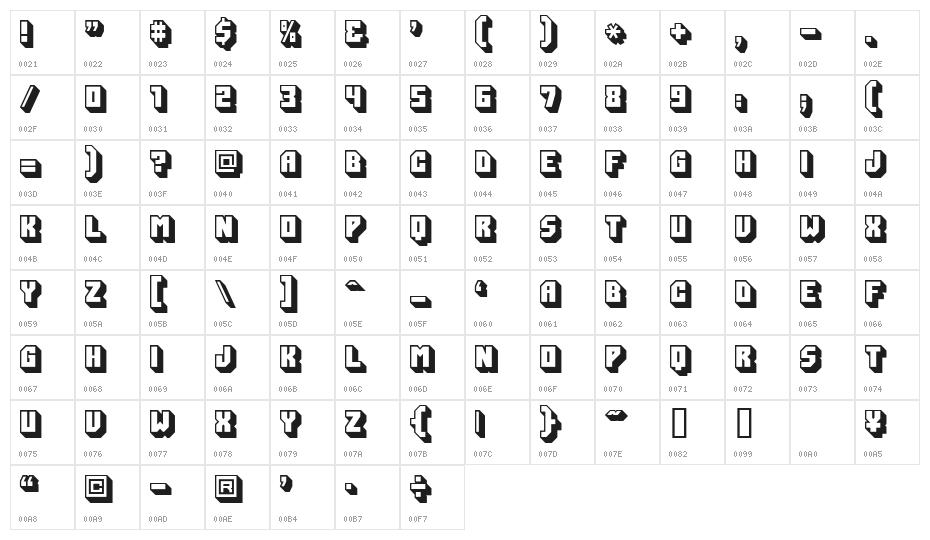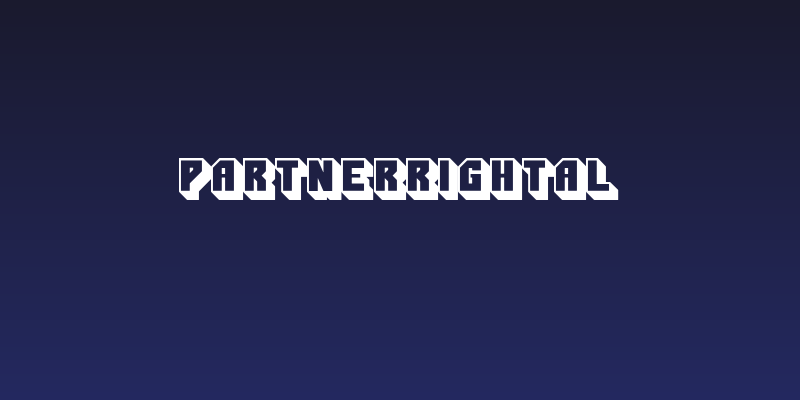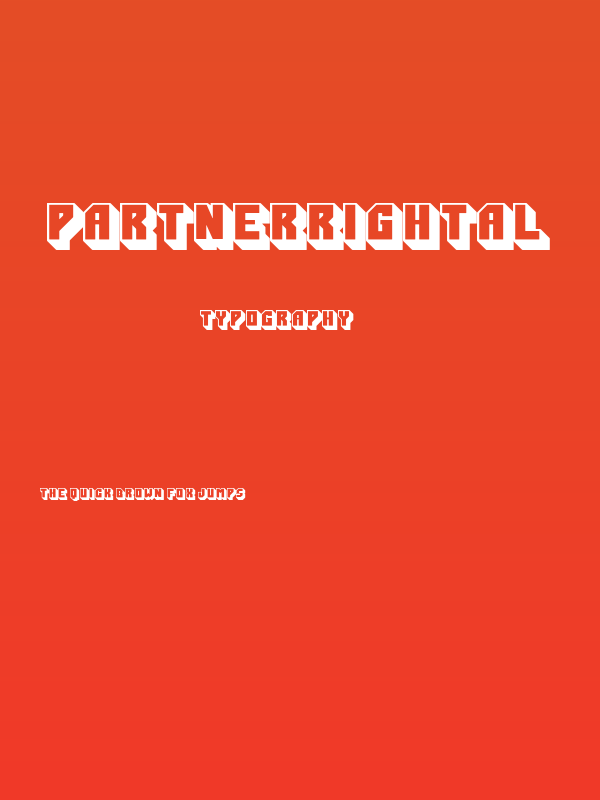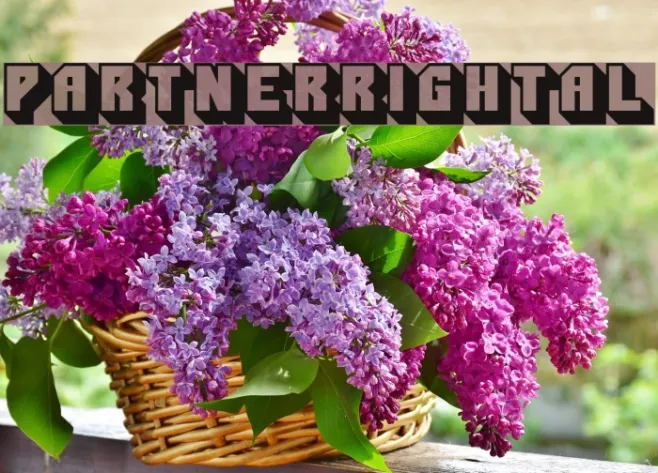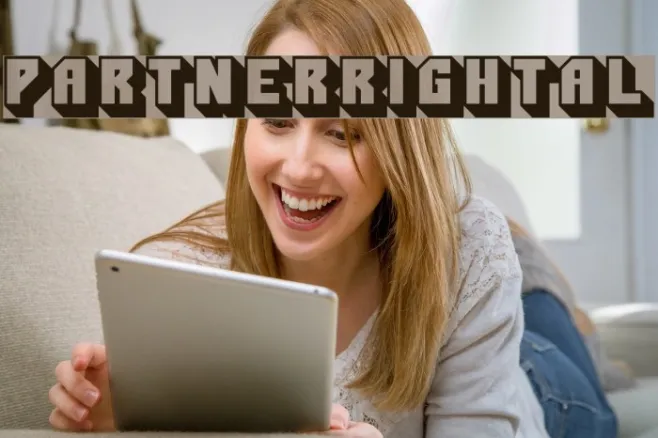
PartnerRightAL Font
PartnerRightAL Description
This font features a bold, three-dimensional block style with a strong shadow effect, giving it a striking and impactful appearance. The characters are uppercase and have a geometric, angular design that emphasizes their boldness. The shadow effect creates a sense of depth, making the letters appear as if they are popping out from the background. This style is reminiscent of retro or vintage video game aesthetics, adding a playful yet assertive touch to any design. The font is highly legible and commands attention, making it ideal for headlines or display purposes where a strong visual impact is desired. The consistent thickness of the strokes and the uniformity in character width contribute to its cohesive and structured look.
| Overall Style | Retro, Decorative |
| Proposed Projects | Ideal for retro-themed posters, video game graphics, eye-catching headlines, and branding materials that require a bold statement. |